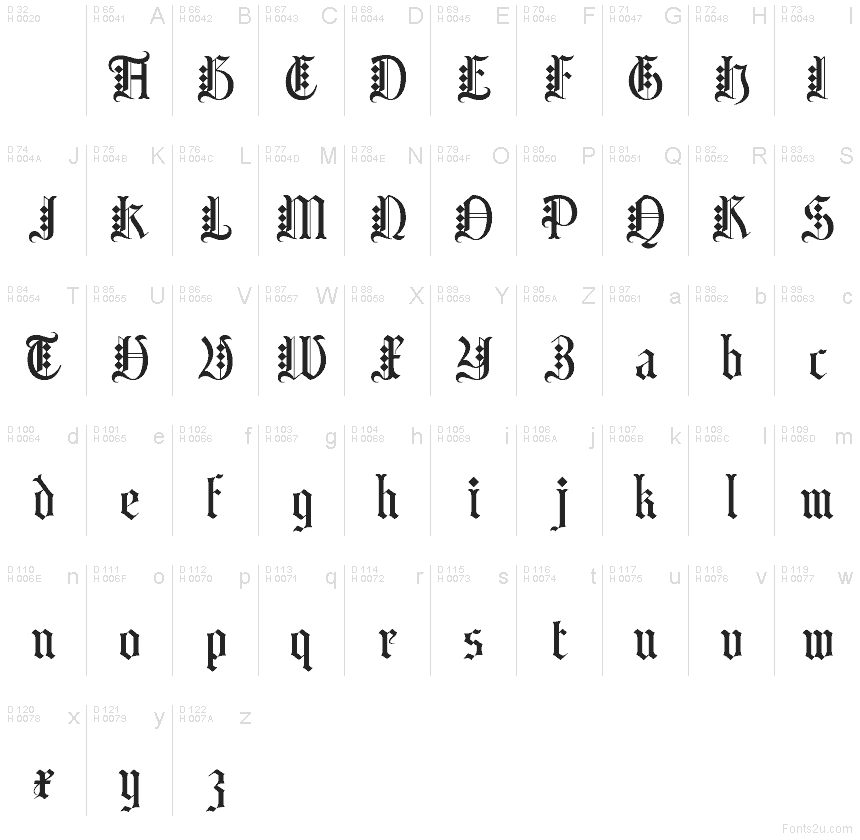
CS Enigma Regular Demo
CS Enigma font by Craft Supply Co. is an intricately designed gothic font inspired by medieval history and aesthetics. With a condensed width, ornamental details, and a strong feel of past centuries, this typeface brings attention to its intricate design.
This free gothic font supports projects that need posters, websites, headlines, social media posts where ideal typography is required. Use it further for non-conventional invitations, packaging designs for ancient beverages like wine or occasions such as Halloween banners and digital games that require spooky letters!